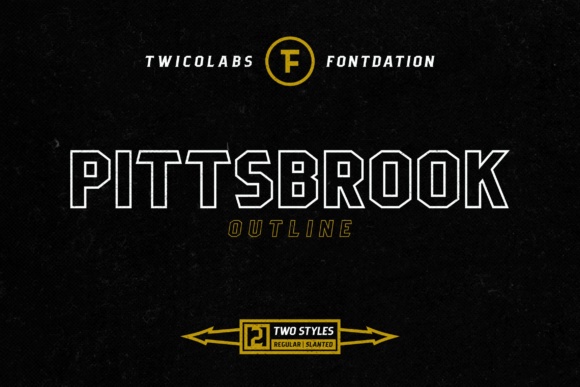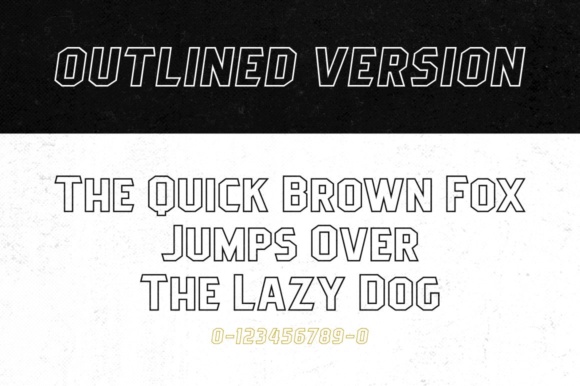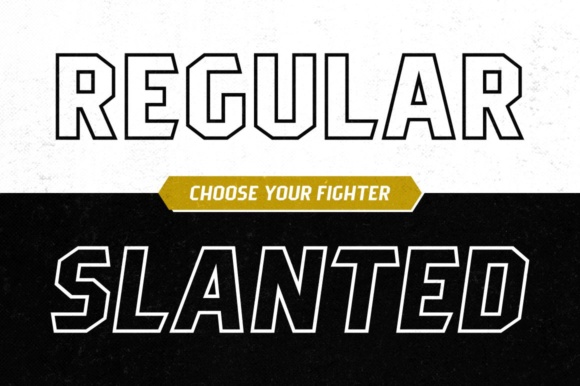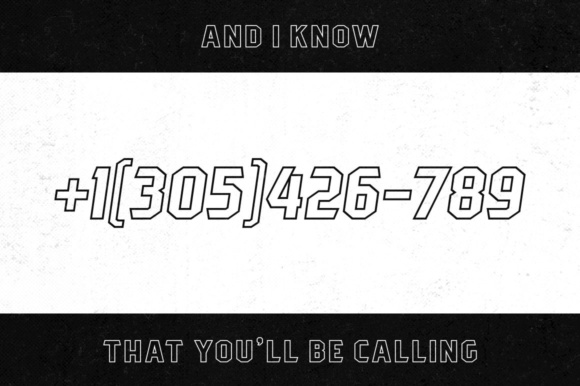
Pittsbrook Outline Font
About the Pittsbrook Outline Font
Let us introduce you to Pittsbrook Outline Font, where timeless design meets modern craftsmanship. The Pittsbrook Outline is a classic outlined typeface that was inspired by the letters used in old advertisement and packagings. Its rigid shape gives your design strong, sharp and blocky feelings.
It suits best for E-Sport logos, liquor/food labels, packaging, headlines, space-fillers, logotypes, typographic quote writings, etc.
Pittsbrook Outline’s bold, retro aesthetic makes it ideal for projects requiring a strong, vintage feel. It excels in headlines, logos, and short text applications where its distinctive outline adds impact. Avoid using it for body copy or extended text; the outlined forms can become visually tiring and difficult to read at smaller sizes. Consider pairing it with a clean sans-serif like Futura for a modern contrast, or a classic serif like Garamond for a more traditional feel.
Its inherent boldness suggests applications in branding for products emphasizing quality, heritage, or a vintage style – think craft breweries, whiskey labels, or retro-inspired apparel. The font’s strong personality might clash with brands aiming for a delicate or minimalist aesthetic.
For a more playful approach, consider pairing Pittsbrook Outline with a playful script font. Conversely, a geometric sans-serif would offer a sleek, contemporary counterpoint, tempering the font’s retro energy.
Pittsbrook Outline Font Usage Examples
Pittsbrook Outline Font Example